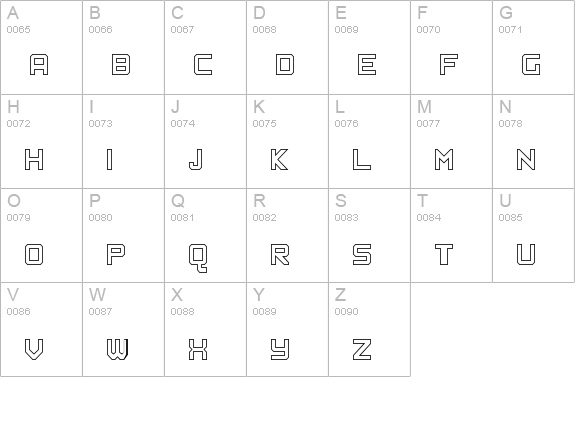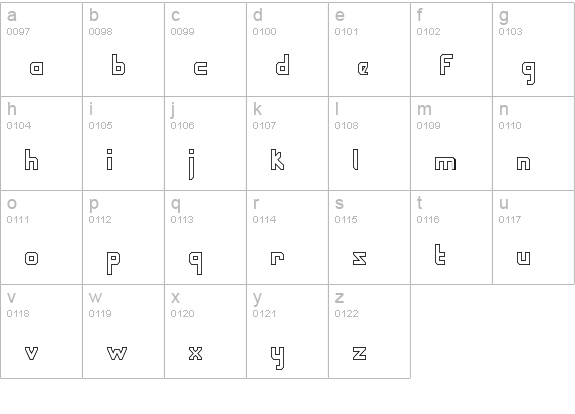
Introducing Hyperdigital Outline, a truly captivating font that effortlessly merges modernity with a touch of futuristic charm. This font is designed to captivate and inspire, making it the perfect choice for those seeking to make a bold statement with their typography. Hyperdigital Outline boasts a sleek and streamlined aesthetic, with its clean lines and precisely crafted letterforms. Every curve and angle has been meticulously designed to create a visually striking and memorable typeface that is sure to leave a lasting impression. What sets Hyperdigital Outline apart is its versatility. Whether used for branding, editorial design, or web graphics, this font adapts effortlessly to any project, lending a touch of sophistication and elegance. Its bold presence demands attention, making it ideal for headlines and titles that need to stand out. But what truly sets Hyperdigital Outline apart is its accessibility. This font is available for free download exclusively at FontsMarket.com. Yes, you read that right – free! Now, designers and creatives alike can enjoy the benefits of this remarkable typeface without any cost. Embrace the power of Hyperdigital Outline and let your creativity flow freely. So, what are you waiting for? Download Hyperdigital Outline today from FontsMarket.com and unlock a world of possibilities. Whether you're a seasoned designer or just starting out, this font will undoubtedly become an essential tool in your typographic arsenal. Don't miss out on this incredible opportunity to own a truly stunning font, completely free of charge. Get ready to elevate your designs with Hyperdigital Outline.